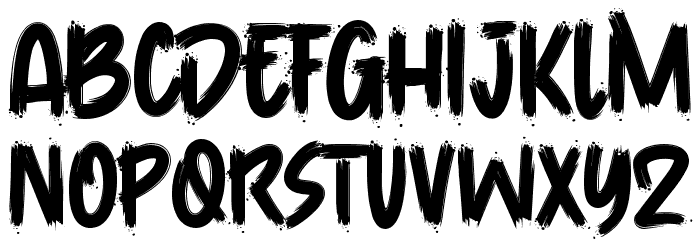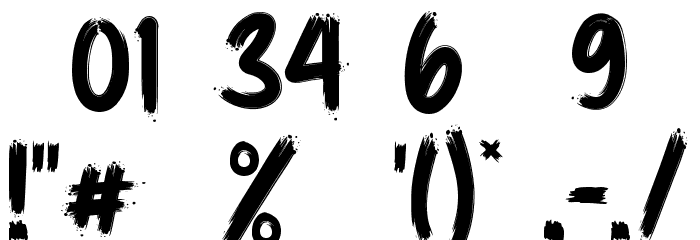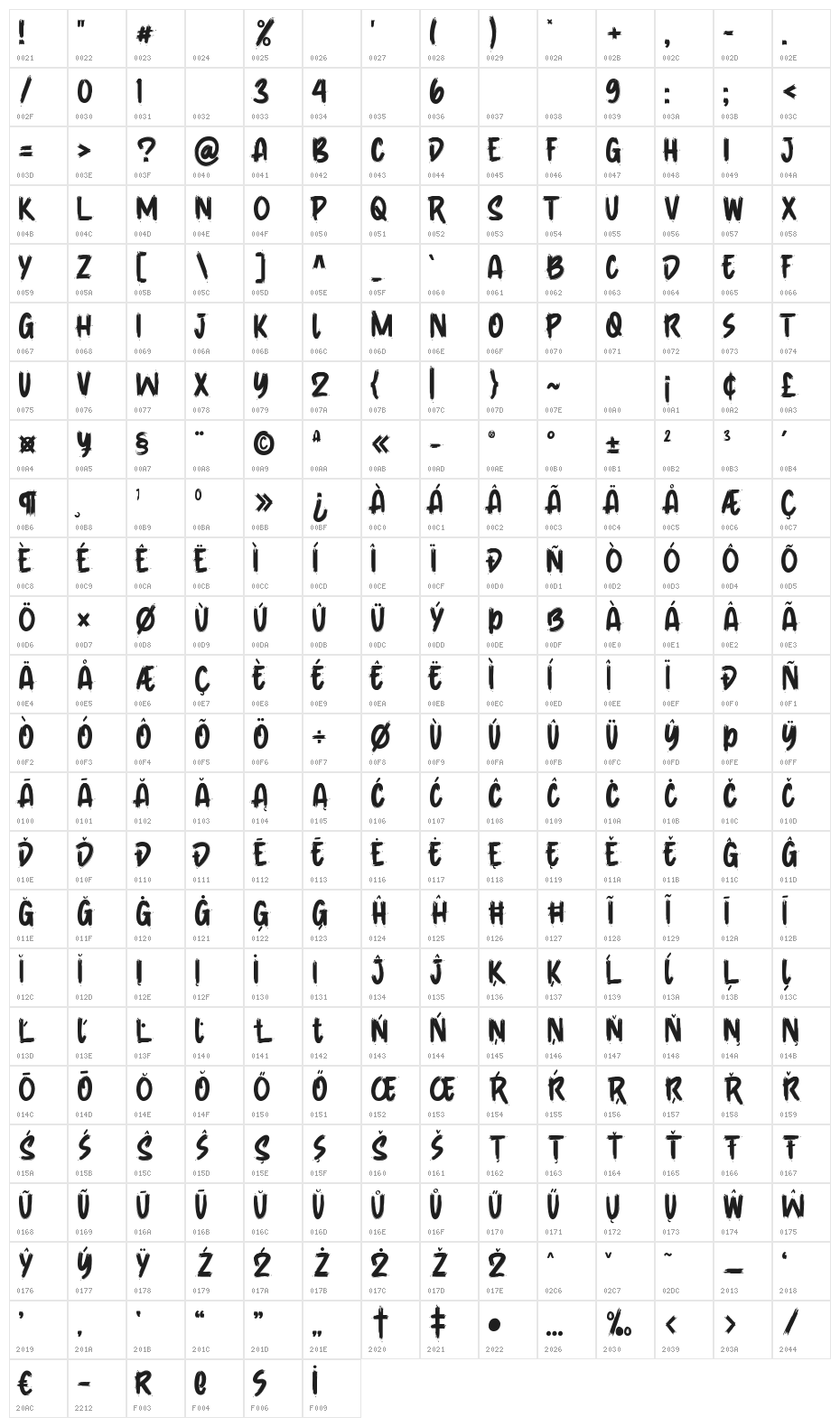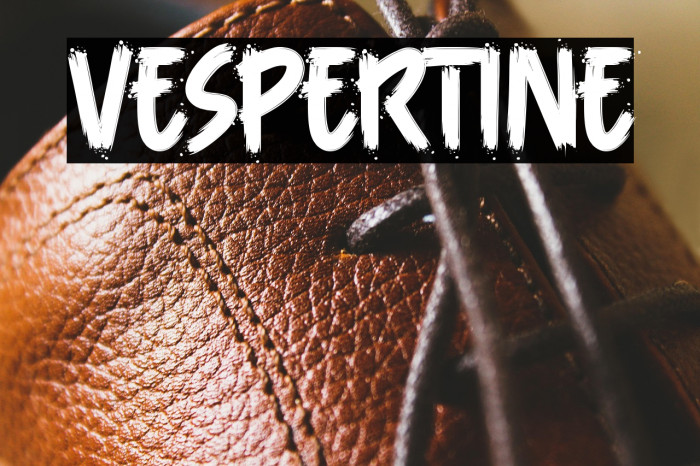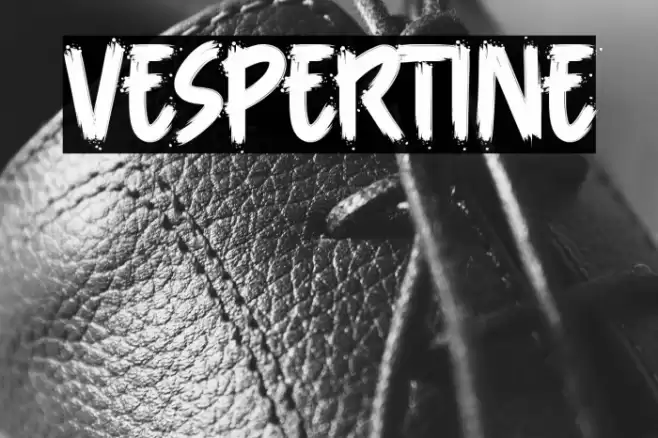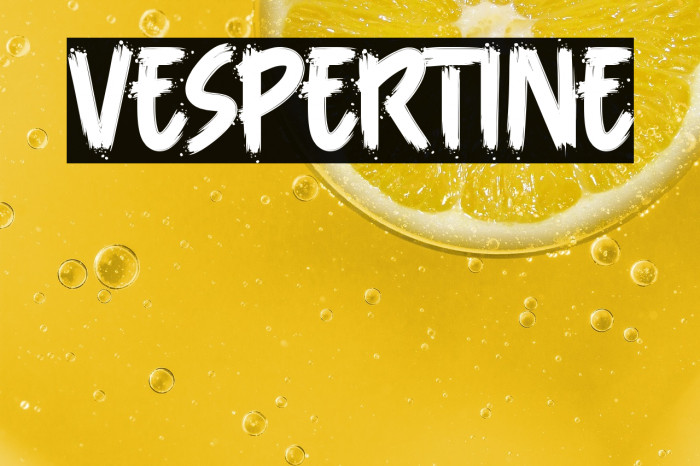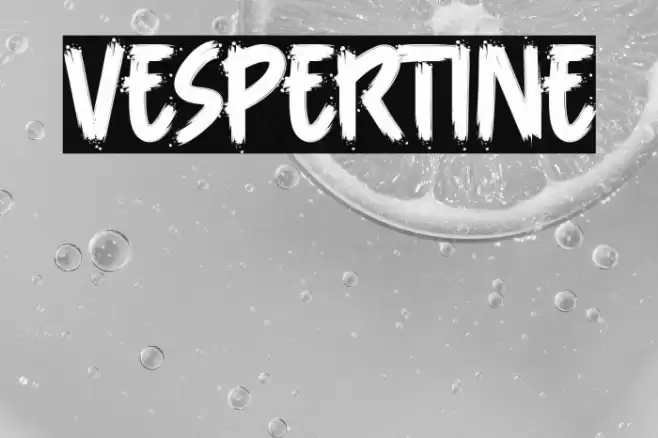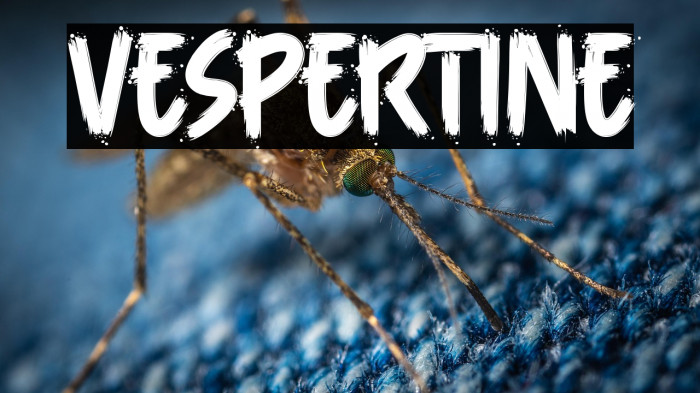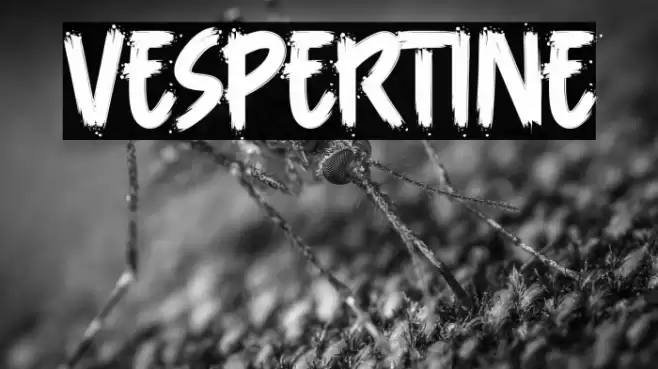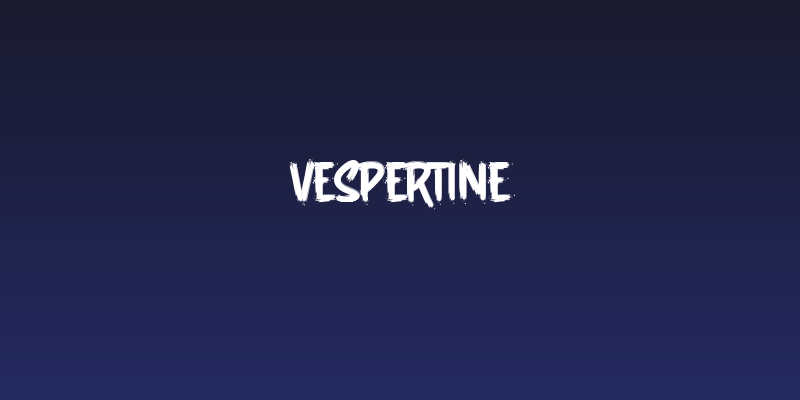
Vespertine Font
This font features a bold, brush-stroke style that exudes energy and dynamism. The characters are crafted with a rough, textured appearance, giving them a hand-painted look. The uppercase and lowercase letters maintain a consistent style, with thick strokes and slightly irregular edges that add to the font's artistic flair. The numbers and special characters follow the same design principles, ensuring a cohesive look across all elements. This font is perfect for projects that require a bold and expressive typeface, such as posters, album covers, or branding materials that aim to capture attention and convey a sense of creativity and movement.
A bold, brush-stroke style font with a textured, hand-painted appearance.